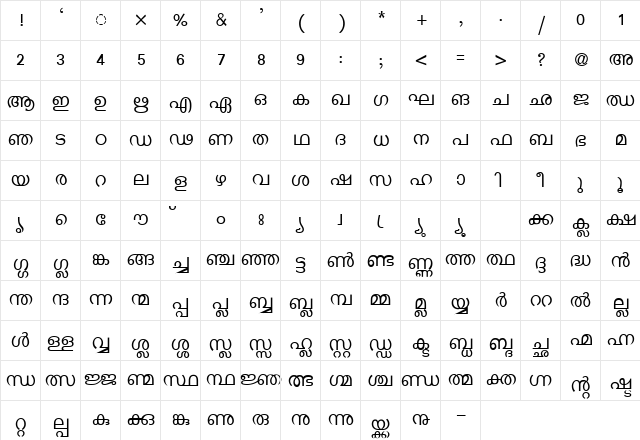
KERALAX-MAL Normal
Design Context for KERALAX-MAL Typeface
KERALAX-MAL takes a measured approach to typography — its balanced proportions and neutral character make it a reliable workhorse for both digital and print work.